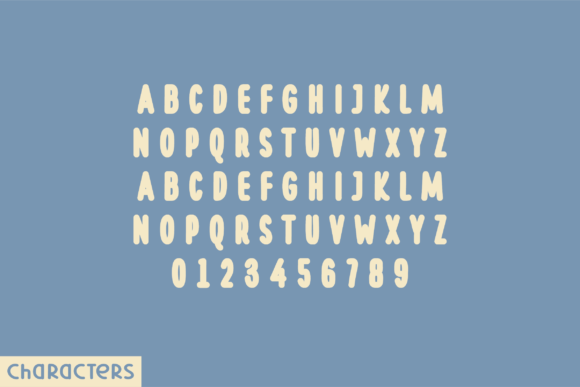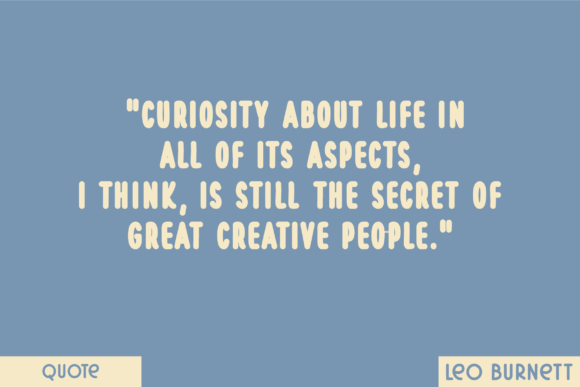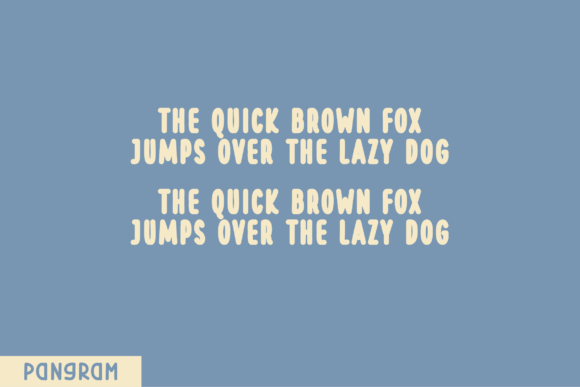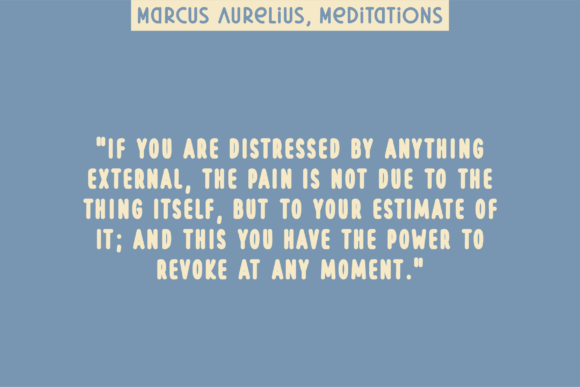
Introducing Flavorful Font: The Unique Sans Serif for Creative Designs
In the world of typography, a new font has emerged that’s making waves among designers and crafters alike. Say hello to Flavorful Font, a natural sans serif font that’s taking the design community by storm. What sets Flavorful apart is its unique approach to font creation, where not a single node in each character’s indentation was altered. This distinctive feature makes Flavorful a standout choice for a variety of design projects.
The Story Behind Flavorful Font
Flavorful Font was crafted with the goal of creating a typeface that’s both simple and intriguing. By preserving the original indentation of each character, the font’s creator aimed to produce a font that exudes a sense of natural elegance. The result is a font that feels both modern and approachable, making it perfect for a wide range of applications.
What Makes Flavorful Font So Special?
So, what makes Flavorful Font so unique? The answer lies in its untouched character indentation. This approach gives the font a distinctive, hand-crafted feel that’s hard to find in traditional sans serif fonts. The subtle irregularities in the font’s design add a layer of personality and whimsy, making it perfect for designs that require a touch of individuality.
Perfect for Quotes, Notes, Tees, and More
Flavorful Font is incredibly versatile, making it suitable for a variety of design projects. Here are just a few ideas to get you started:
- Quotes and Sayings: Add a touch of personality to your inspirational quotes and sayings with Flavorful Font’s unique charm.
- Notes and Journals: Use Flavorful Font to add a decorative touch to your notes, journals, and planners.
- T-Shirts and Apparel: Create eye-catching tees and apparel with Flavorful Font’s bold, yet elegant design.
- Product Design: Add a personal touch to your product designs, packaging, and branding with Flavorful Font’s distinctive style.
Why Choose Flavorful Font?
With so many fonts available, why choose Flavorful Font? Here are just a few reasons why designers and crafters are falling in love with this unique typeface:
- Unique and Memorable: Flavorful Font’s distinctive design makes it instantly recognizable and memorable.
- Versatile: Flavorful Font is suitable for a wide range of design projects, from digital to print.
- Elegant and Modern: The font’s natural, sans serif design makes it perfect for modern and elegant designs.
How to Use Flavorful Font in Your Designs
Ready to incorporate Flavorful Font into your designs? Here are a few tips to get you started:
- Experiment with Sizes: Play around with different font sizes to find the perfect balance for your design.
- Pair with Other Fonts: Combine Flavorful Font with other fonts to create a unique and eye-catching design.
- Use in Combination with Images: Pair Flavorful Font with high-quality images to add an extra layer of depth to your design.
Flavorful Font is a game-changer for designers and crafters looking to add a touch of personality to their designs. With its unique approach to font creation and versatile design, Flavorful Font is perfect for a wide range of applications. Whether you’re creating quotes, notes, tees, or product designs, Flavorful Font is sure to make your designs stand out from the crowd.